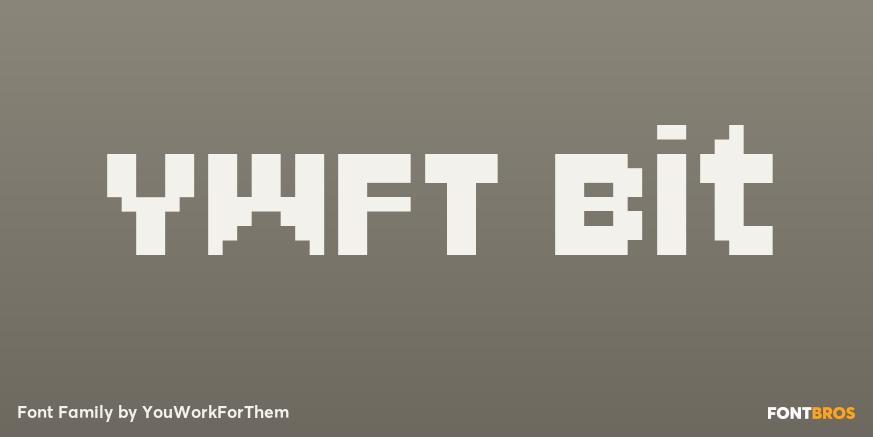
YWFT Bit
About YWFT Bit
YWFT Bit was originally hewn from raw pixels in 1998, then mastered to working format in 2003. You may think YWFT Bit is your typical bitmap affair, but oh, how wrong you would be. With its variety of weights, and unique differences in line widths, YWFT…